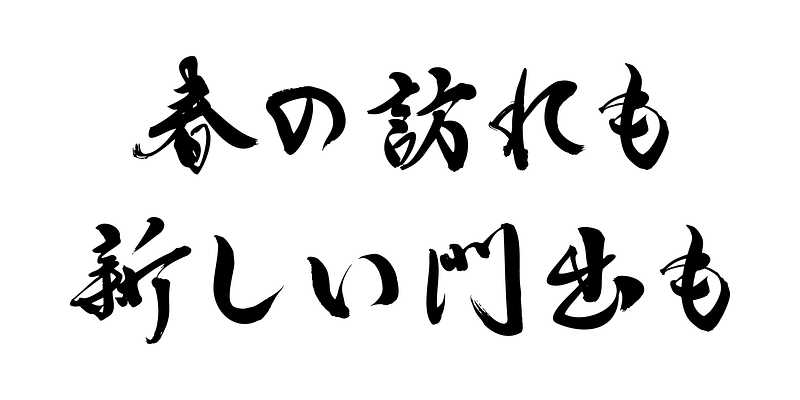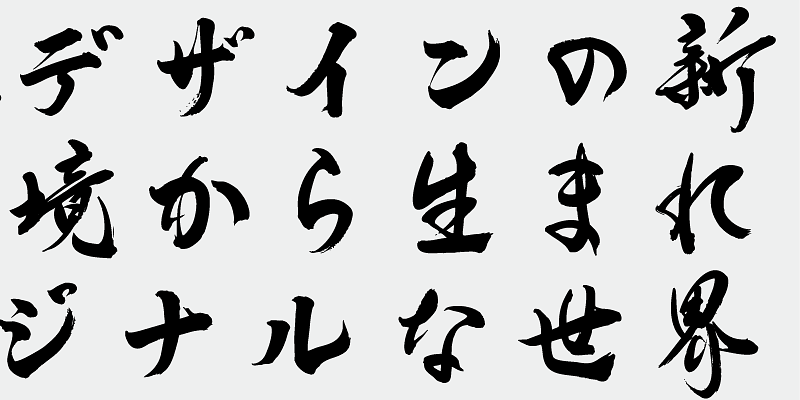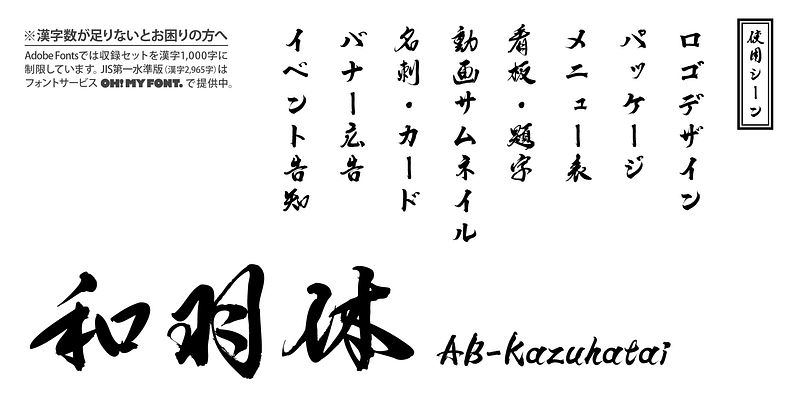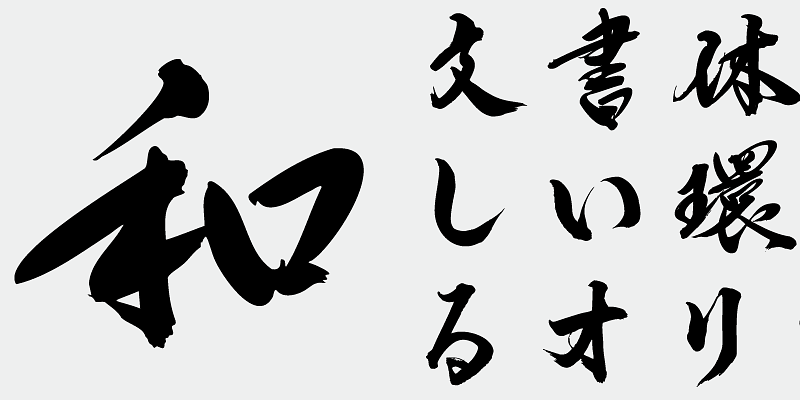
This typeface directly expresses brush pressure variations and brushstroke speed in its lines, creating a flowing overall expression. Each stroke has modulation, rendered with light movement and rhythm. Within its softness lies a core strength, combining elegance with approachability, making it suitable for a wide range of applications from artistic works to practical designs.
This font includes the top 1,000 kanji selected from usage frequency lists compiled by newspaper companies, publishers, and the National Institute for Japanese Language and Linguistics, along with 206 kana characters, alphanumeric characters, and a carefully selected set of typographic symbols.